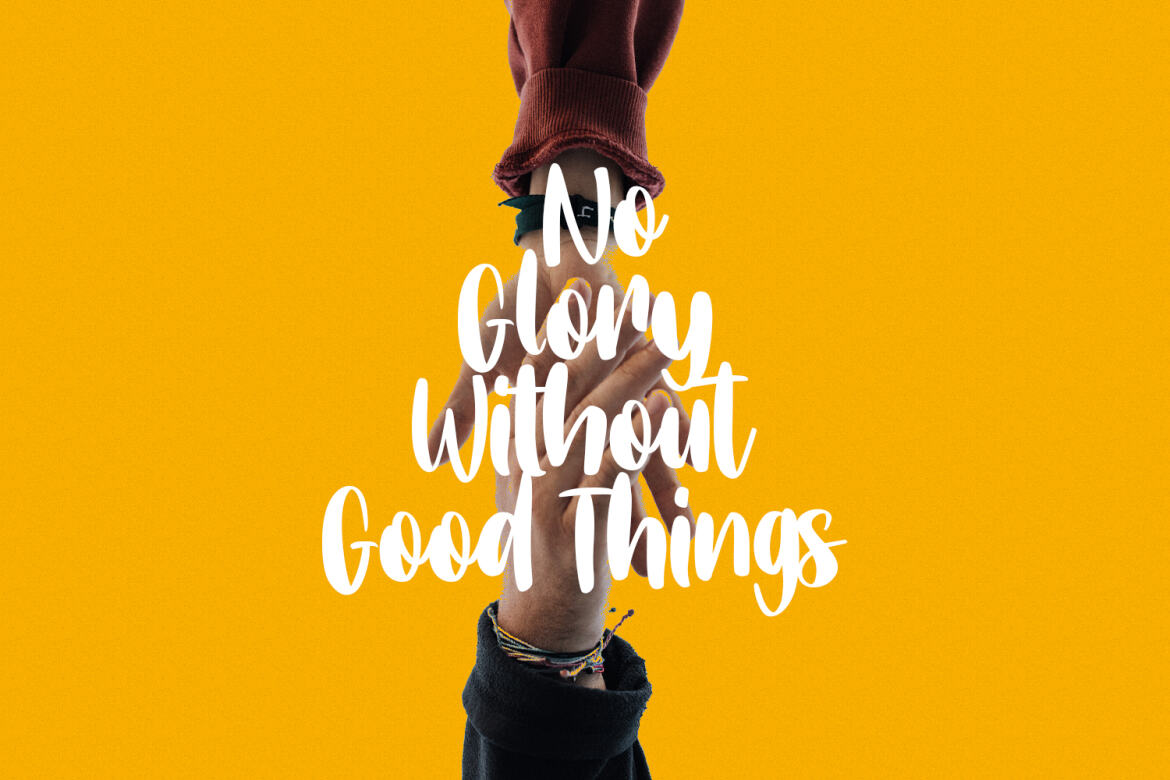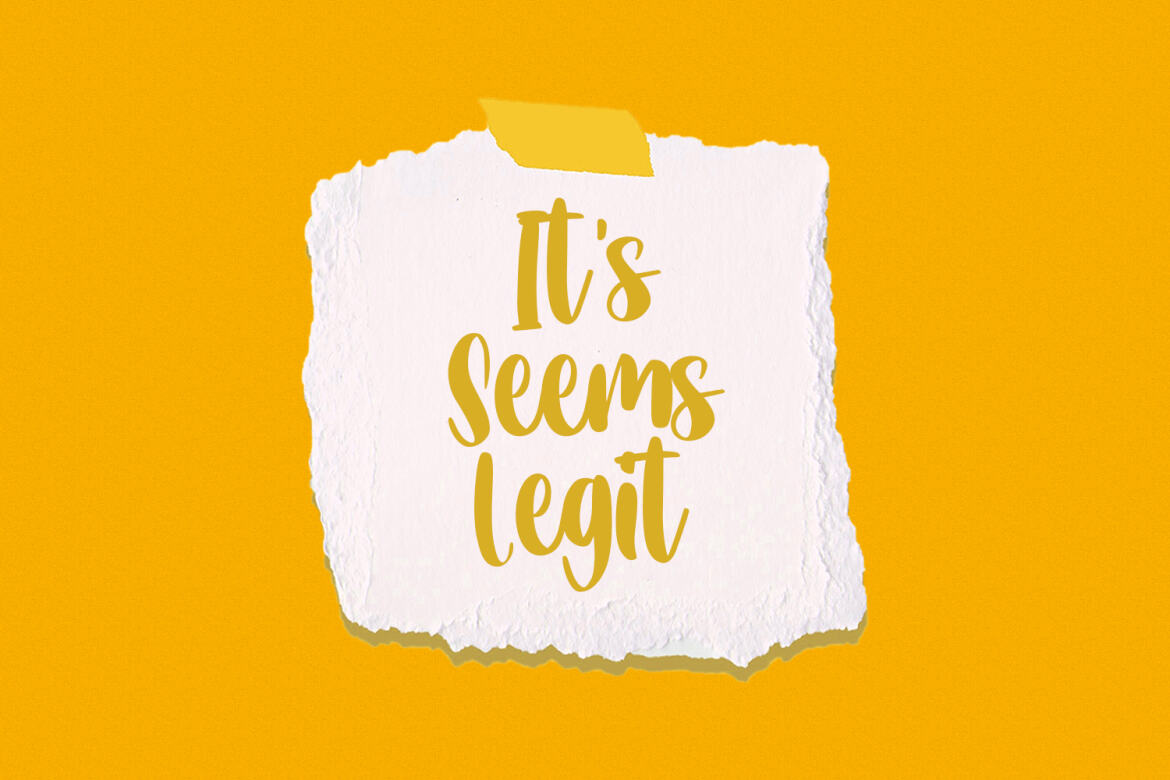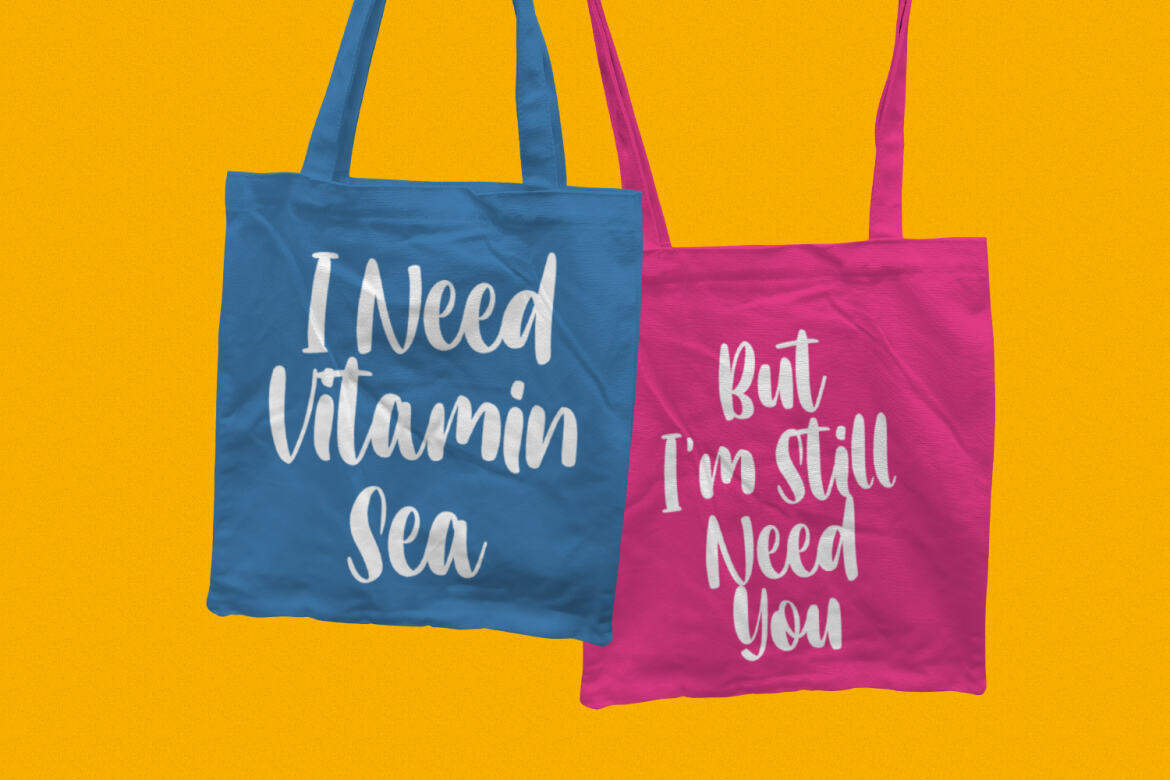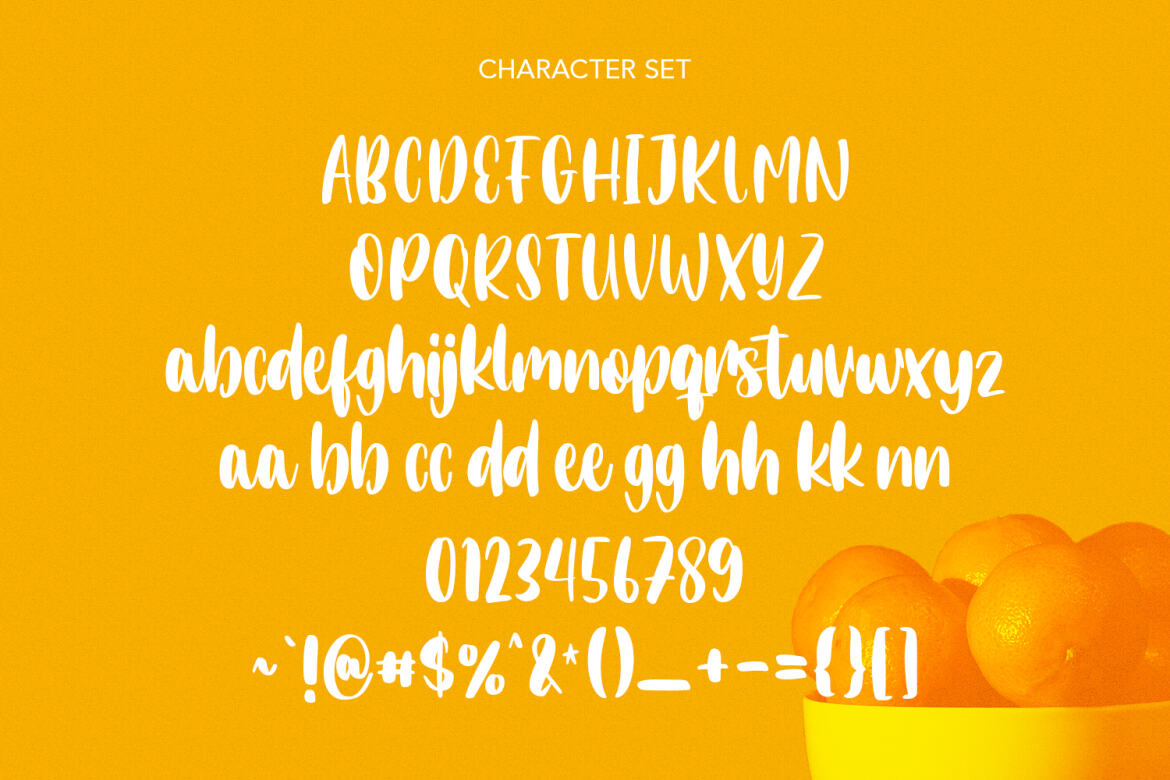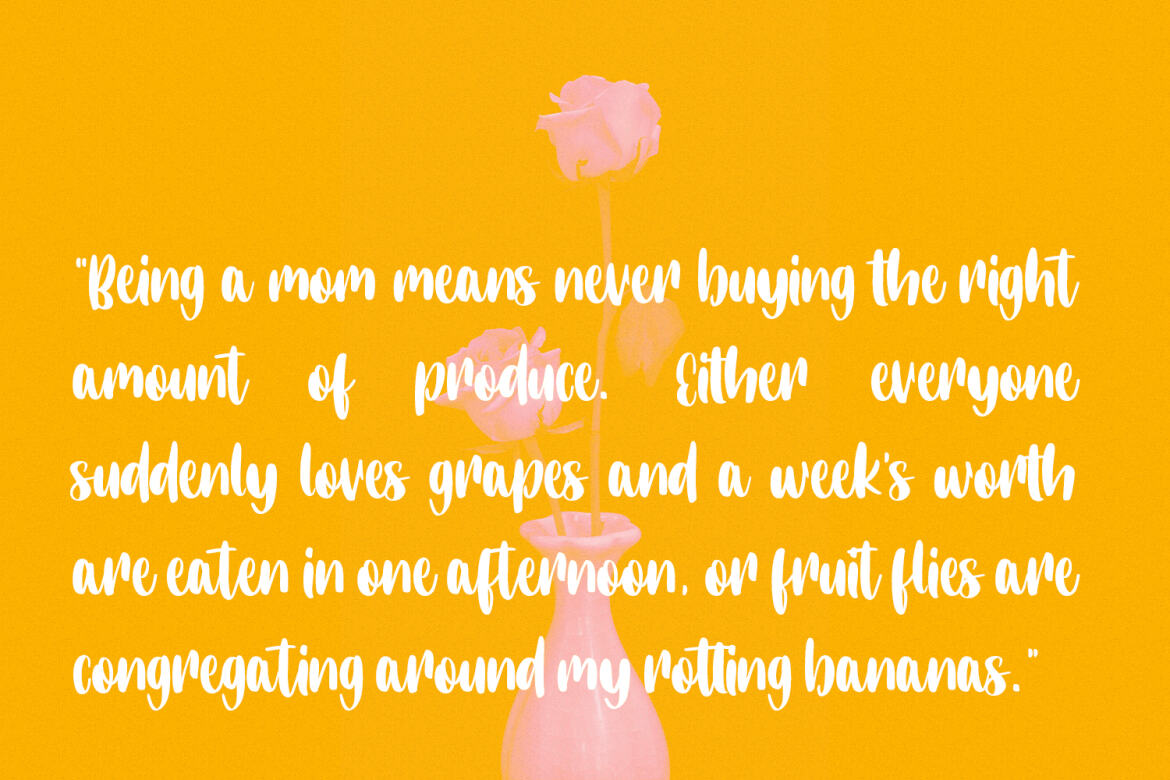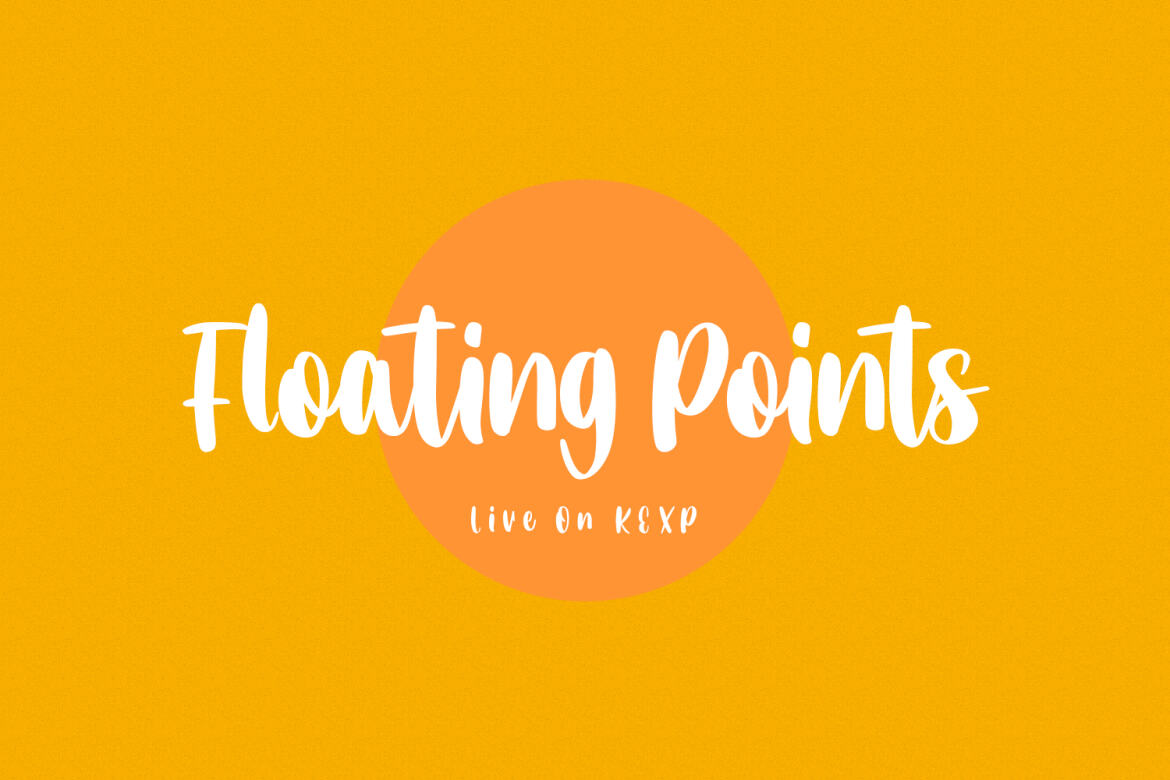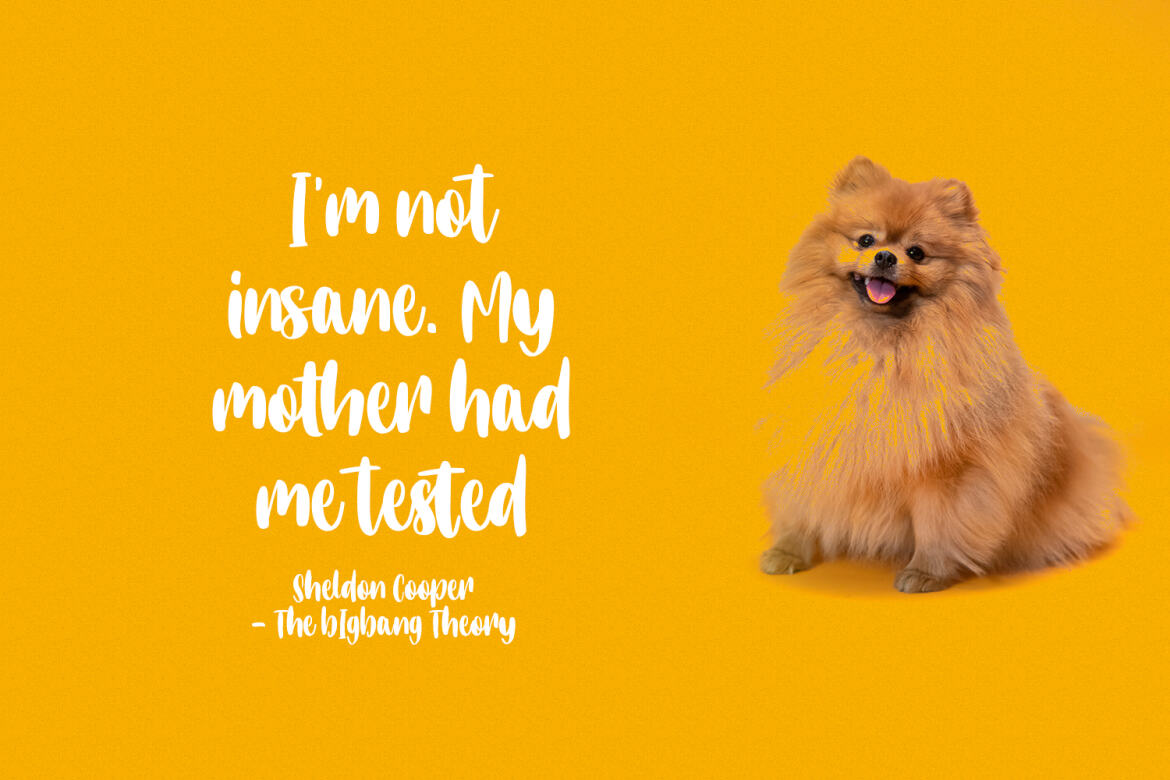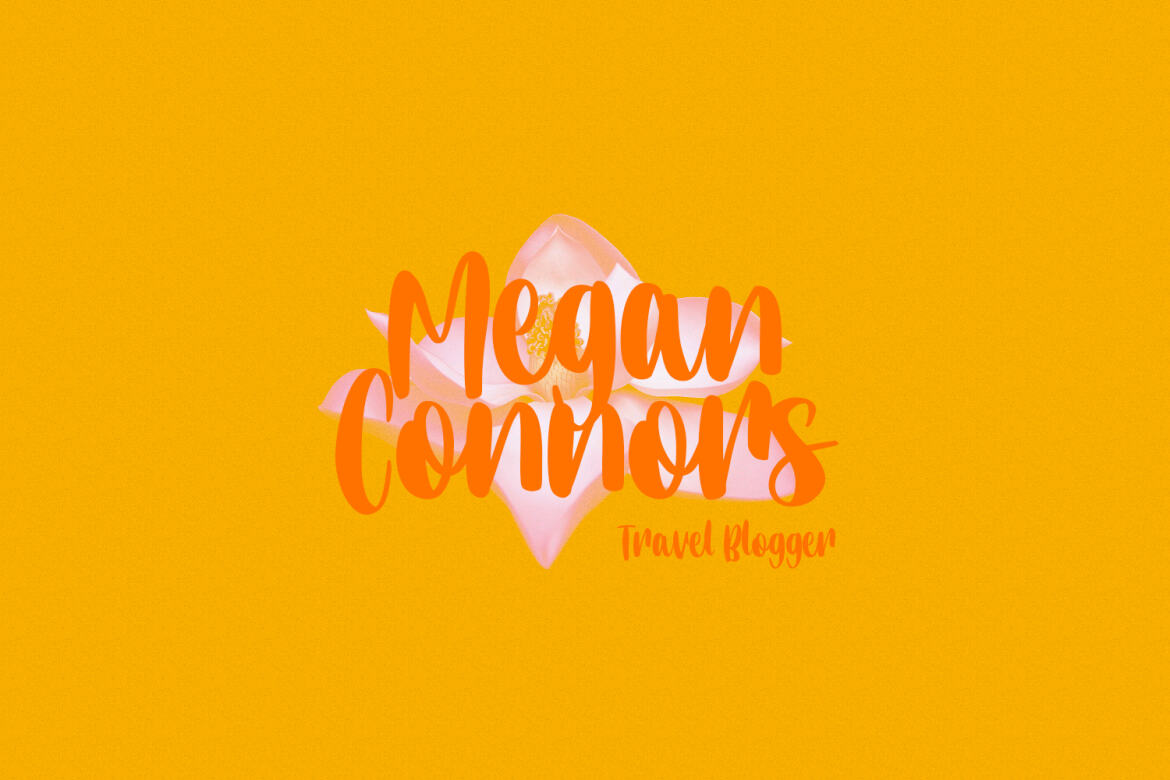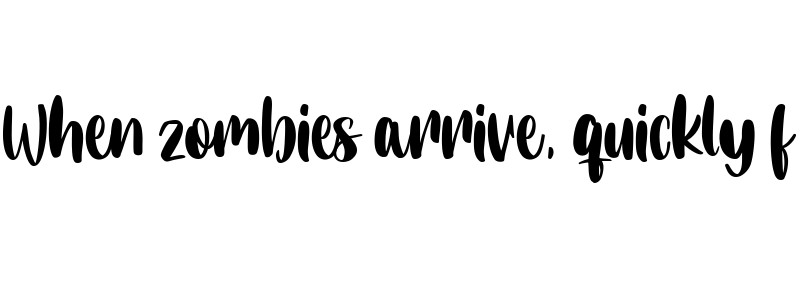
Lottebytes Lovely Cute - Free Font
Lottebytes
Lottebytes is simply cute handwritten font, with bold stroke, uprights and fun character. It has Opentype features ligatures of character, To give you an extra creative work. Lottebytes handwritten font support multilingual more than 100+ language. This font is good for logo design, Social media, Movie Titles, Books Titles, a short text even a long text letter and good for your secondary text font with sans or serif. Make a stunning work with Lottebytes font.